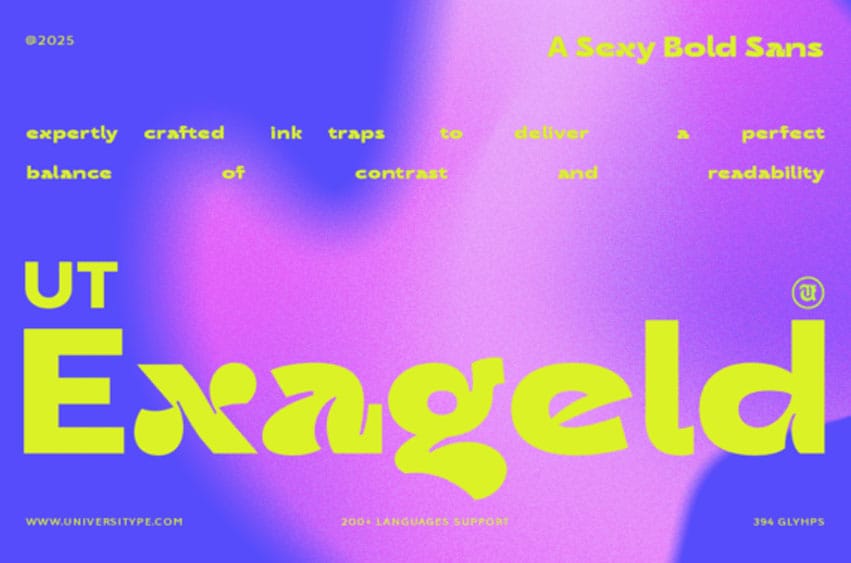
Ut Exageld Font Unleash the power of bold aesthetics with UT Exageld – the sexy, sleek sans-serif font designed to craft a striking visual identity. Meticulously balanced for optimal contrast and readability, this versatile typeface is a favorite among typographers, graphic designers, and imaginative artisans across the globe. From branding to advertising and editorial design, UT Exageld fits seamlessly into your toolkit, flaunting its modern and provocative outlook.
With the character of UT Exageld, your work speaks louder – the font exudes a daringly bold persona guaranteed to snare attention wherever it is used. Considering language barriers? Not an issue. Designed for a global audience, UT Exageld caters to over 200 languages worldwide.
Creativity and customization reach new peaks with the multiple alternate characters included in this font. For a unique twist, try out the different variants for letters “f,” “t,” “i,” and “l”. The proprietary ink trap design employed infuses a higher contrast, ensuring remarkable readability and versatility across applications. Perfect for headlines, posters, branding, or any project demanding an assertive typeface, UT Exageld is your go-to choice.
Inspired by the allure of modern aesthetics, UT Exageld is an icon of the bold and sublime, meant to make a statement in a visually saturated landscape. The inspiration spills over from abstract art, including unique angles and bold statements drawn from Mireille Lauf-Marquis’s renowned statue “La femme et l’océan”.
Combine UT Exageld’s audacious appeal with your creativity to craft captivating headlines or make a splash with posters. Let your brand’s identity bask in this stylish and modern font’s glory. In print or in digital, UT Exageld stands out with its high readability, ensuring your content makes an impact every time.